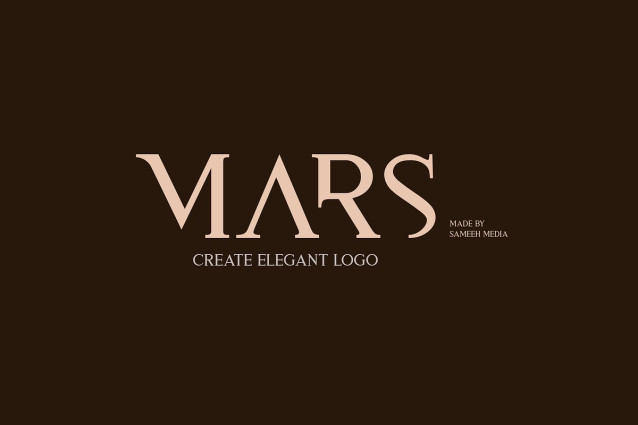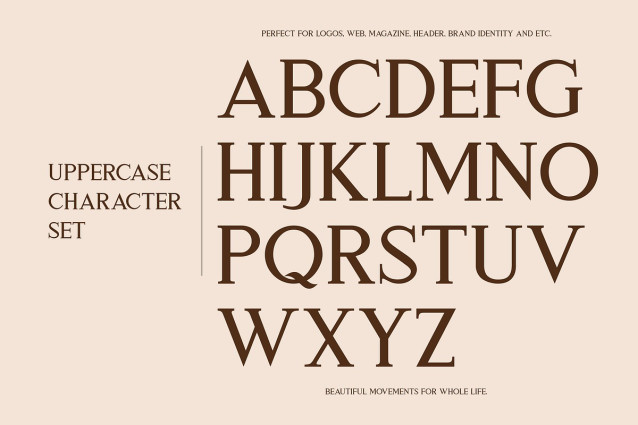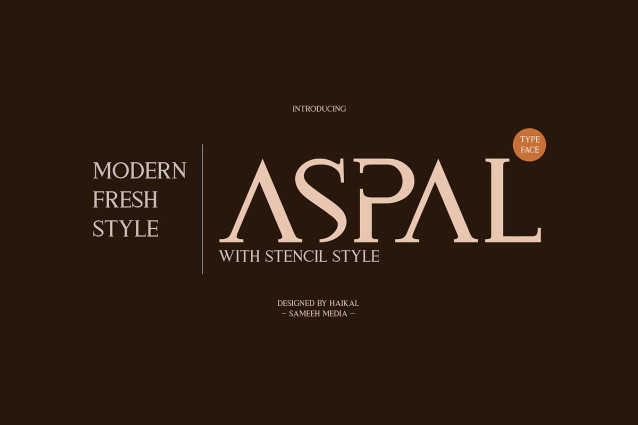
Aspal Font
Aspal Font This minimalistic and classy all-caps serif typeface features with regular and stencil style. Perfect for gorgeous logos & titles, Aspal Typeface will pair beautifully with many fonts and work well with whatever project you’re working on.